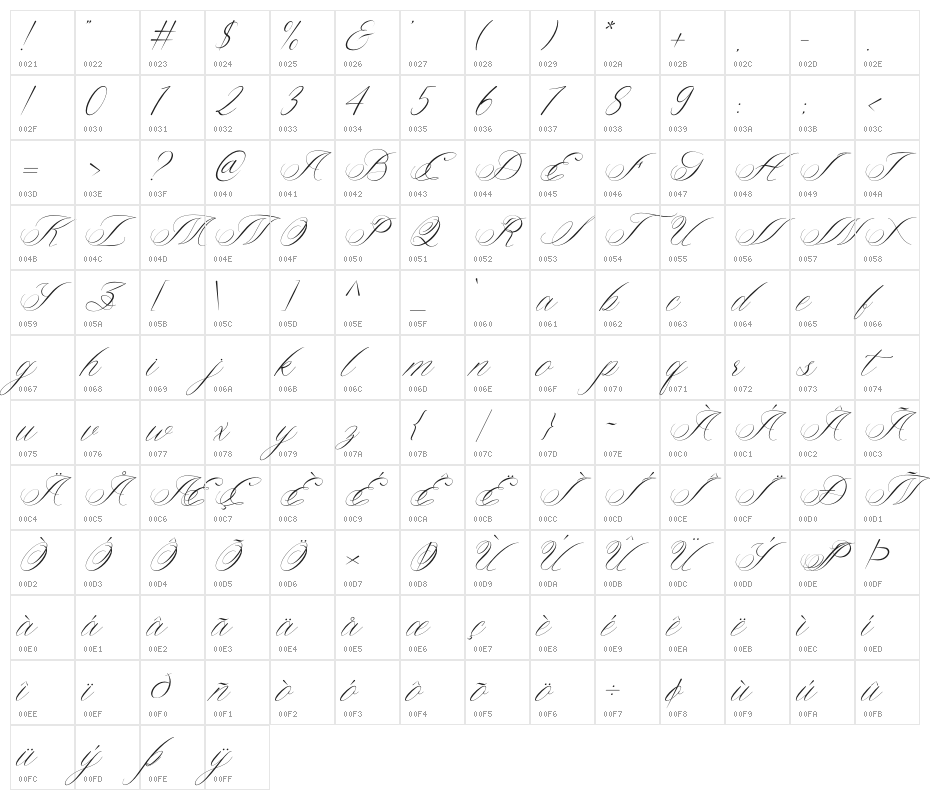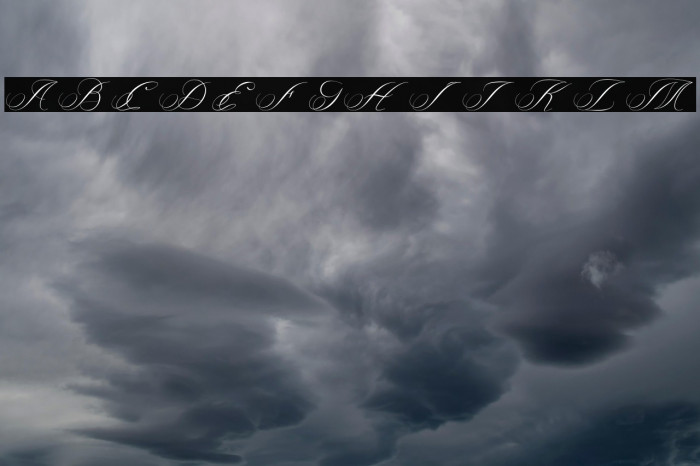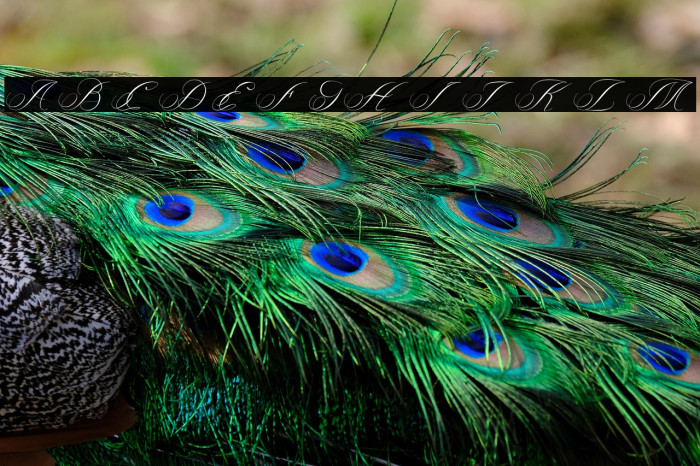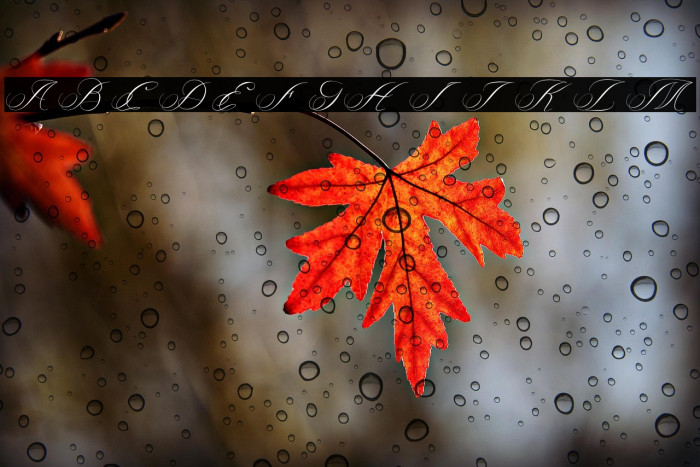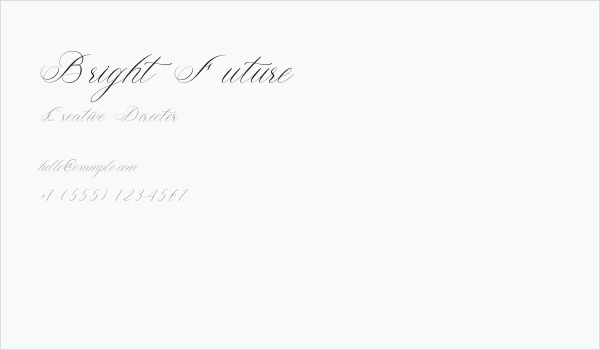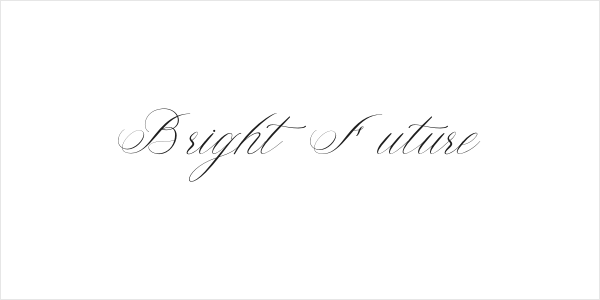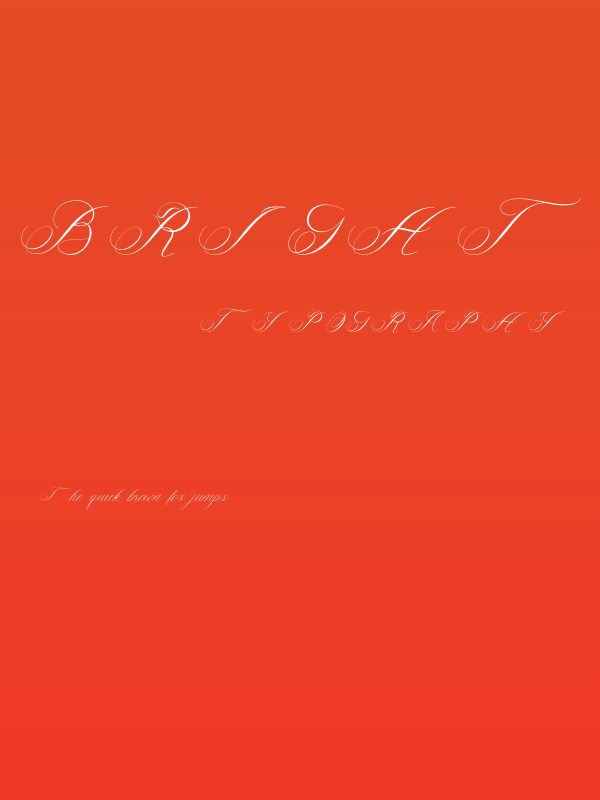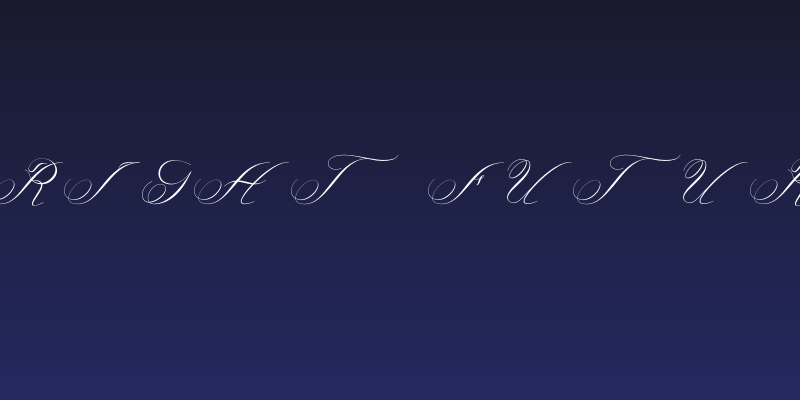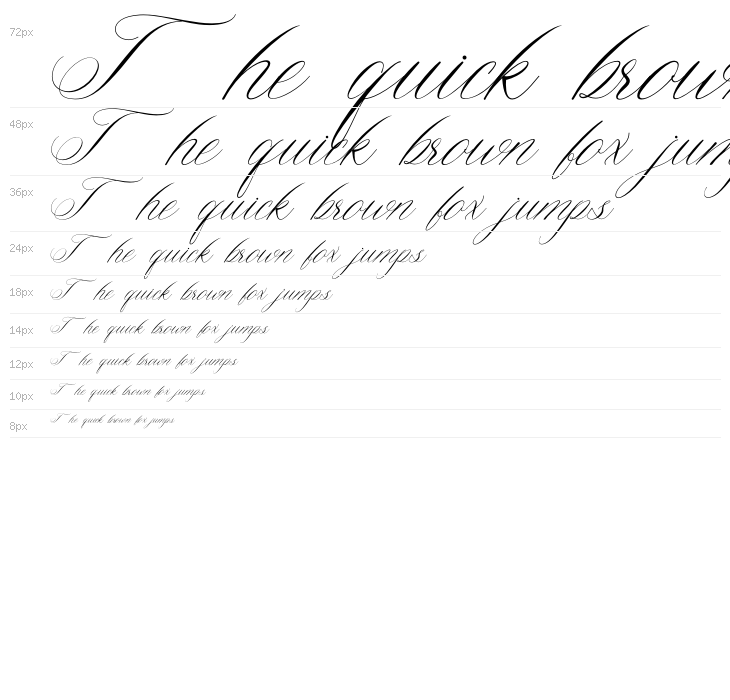
Bright Future Font
Bright Future Description
This elegant script font features flowing, interconnected characters that exude sophistication and grace. The uppercase letters are ornate with delicate loops and flourishes, while the lowercase letters maintain a consistent, fluid motion that enhances readability. The numerals and special characters are designed with the same attention to detail, ensuring a cohesive look across all text. This font's thin strokes and high contrast between thick and thin lines give it a refined and luxurious appearance, making it ideal for formal invitations, branding, and decorative purposes.
| Overall Style | Elegant |
| Use Case | Invitations, Branding, Decorative |
| Proposed Projects | Ideal for wedding invitations, luxury branding, elegant logos, and decorative headings. |